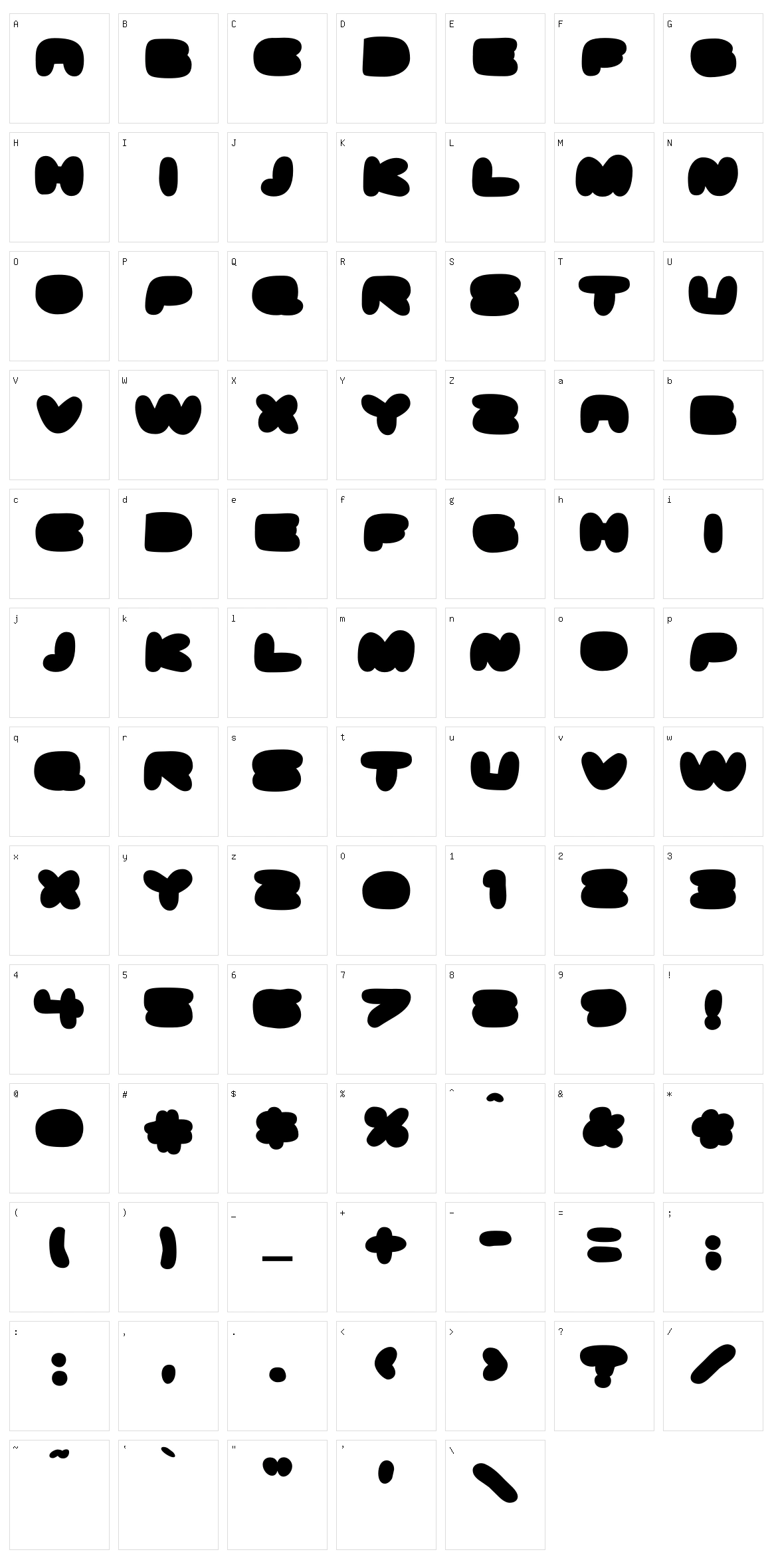
The free font Ghostmeat is carefully designed by Typodermic Fonts, showcasing a thoughtful balance of creativity and usability and falls under the Cartoon font style. When you download the ZIP file, it contains only 94.89 KB of font files, making it lightweight and quick to download. Please review the license details below to understand permitted usage and distribution rights. If license information is not available, we recommend using this font for personal projects only or contacting the author directly for commercial usage permissions.